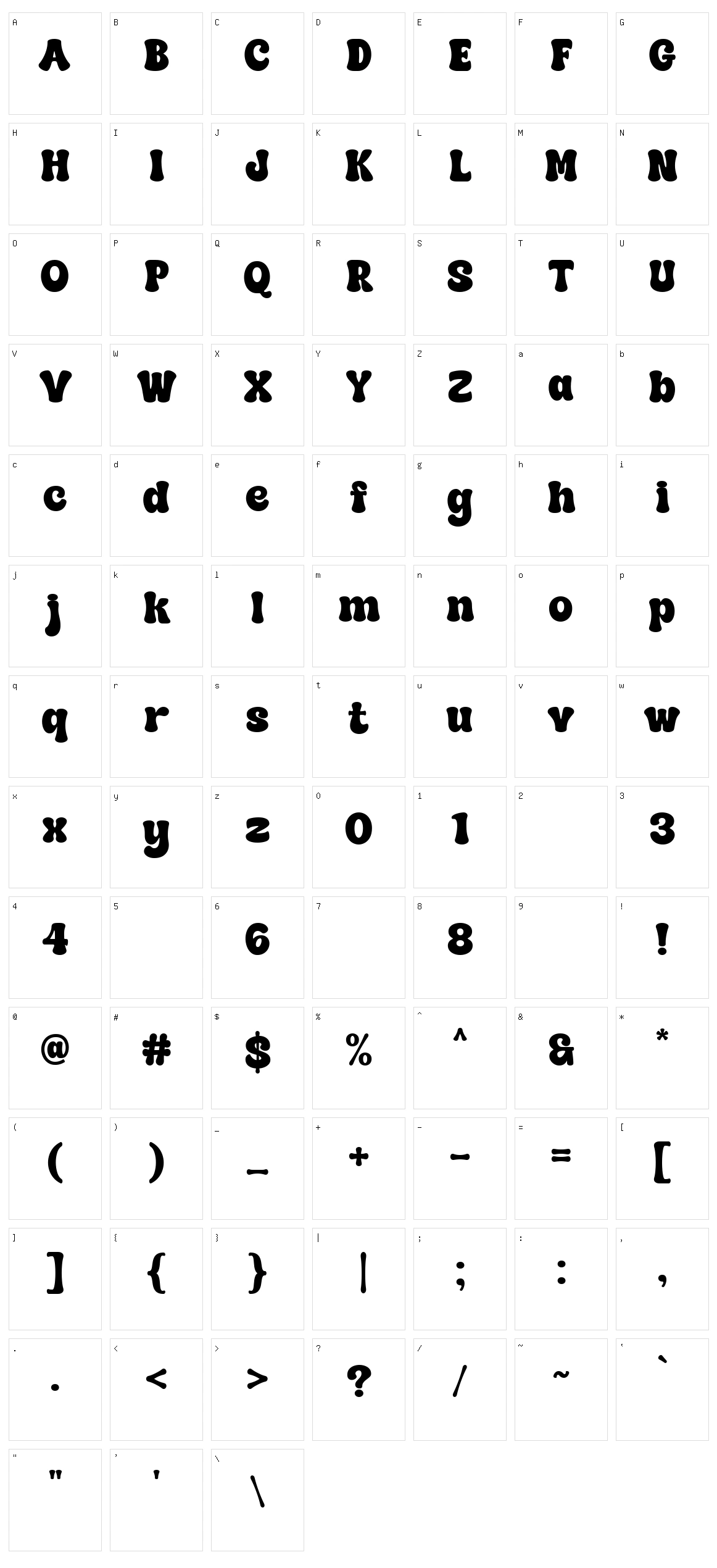
Introducing âSuper Sunday,â a font that captures the essence of laid-back Sundays with a touch of retro flair. Itâs the perfect fit for injecting a dose of personality into your designs, whether itâs for branding, invitations, posters, or just adding a unique touch to your social media posts.